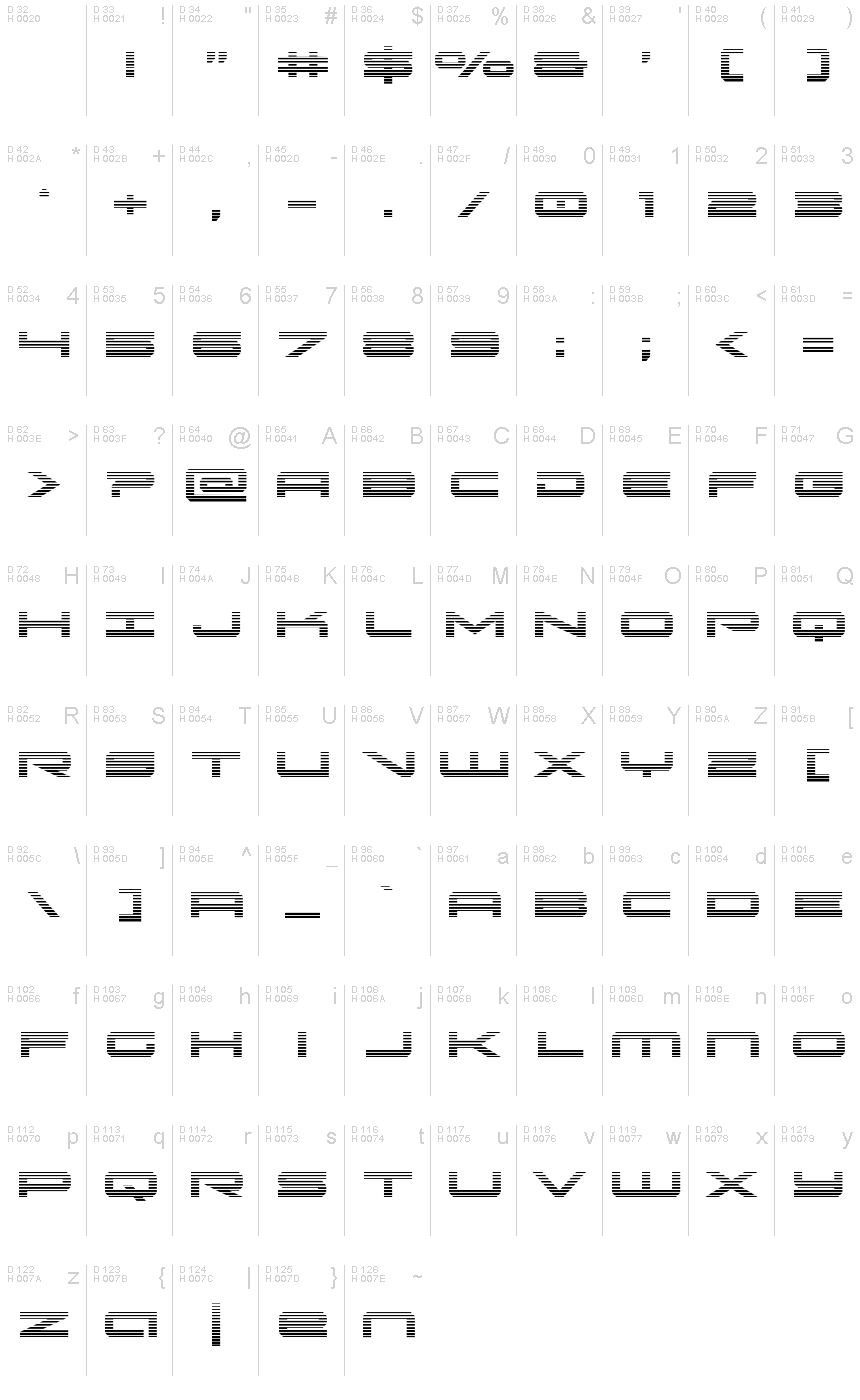
Oramac Gradient
Oramac is a striking display font that exudes a futuristic, expansive allure. Designed by Daniel Zadorozny, this unique typeface boasts a gradient-infused aesthetic, seamlessly blending bold letterforms with a visually captivating gradient effect. The expanded width amplifies the font's striking presence, making it an ideal choice for bold headings, impactful logos, and eye-catching branding elements.
Oramac's distinct personality lends itself well to a range of contemporary design applications, from digital interfaces to print media, where it can effortlessly command attention and convey a sense of modernity and innovation.